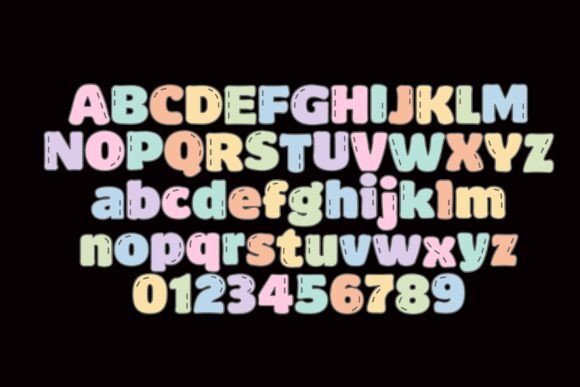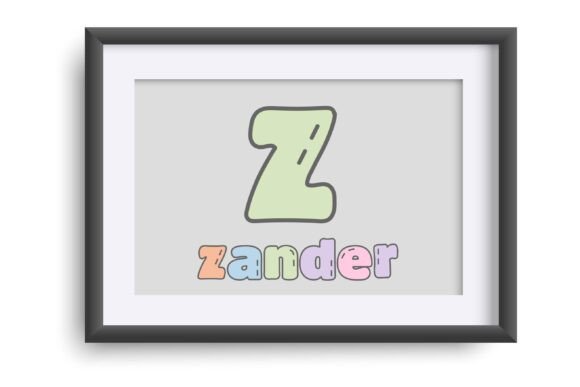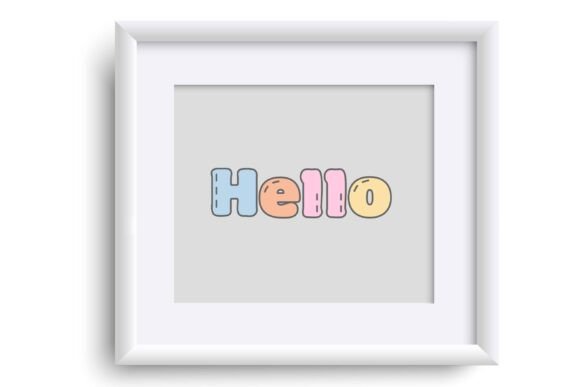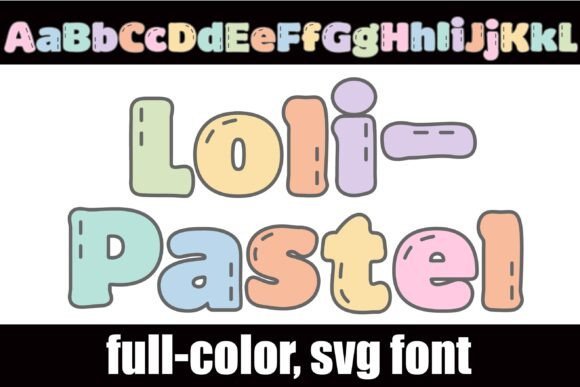
Introduction to Loli Pastel Font
This full-color font features a chunky sans serif in pastel colors with stitches throughout.
There is an alt case of additional colors of each letter that you can access through your system or Silhouette’s glyph map Access a bunny and chick by typing the greater than and less than glyphs.